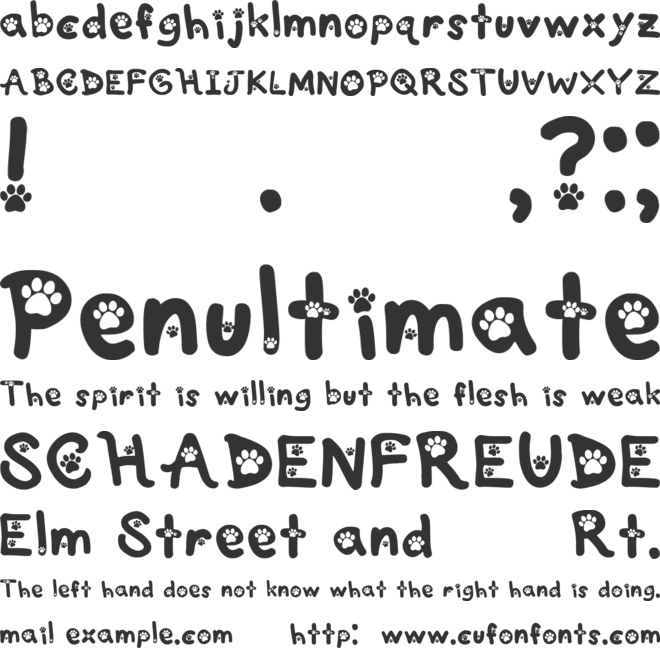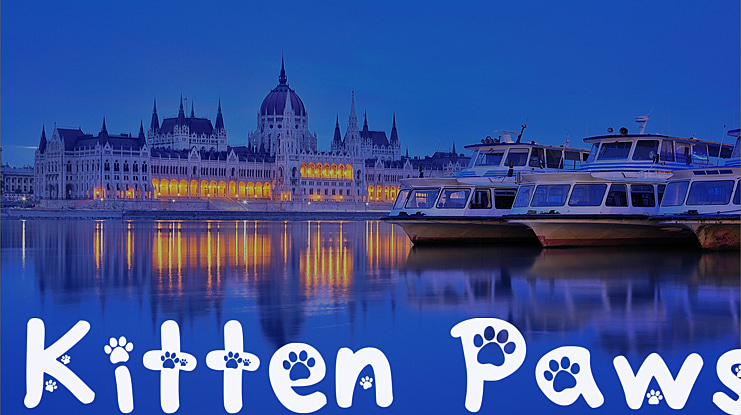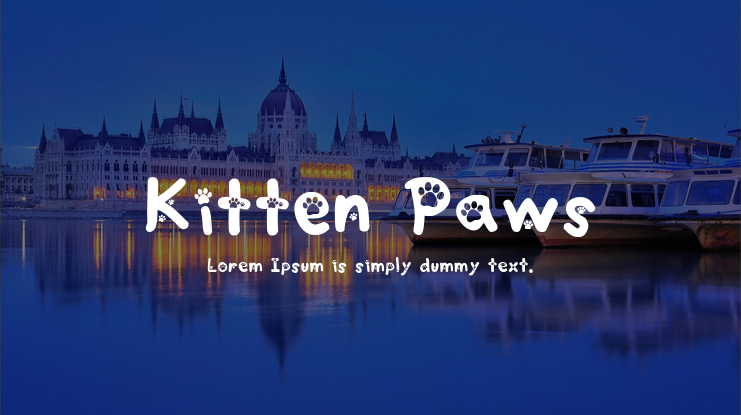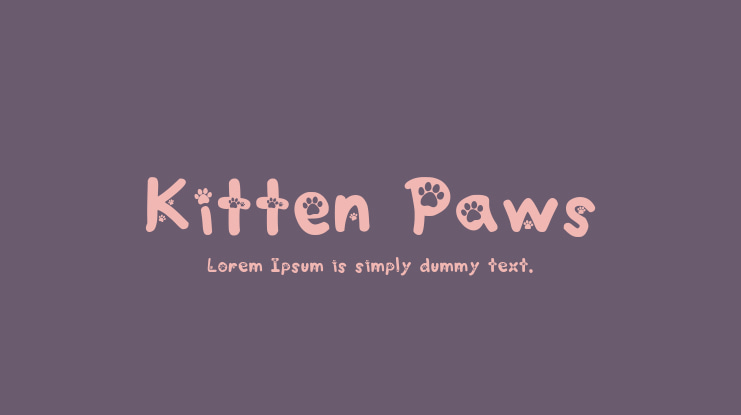
Kitten Paws Font
This font was made inspired on Cat Paws font and a modified handwritten font. It's made for everyone that can't pay for the Cat Font and need something similar to it.